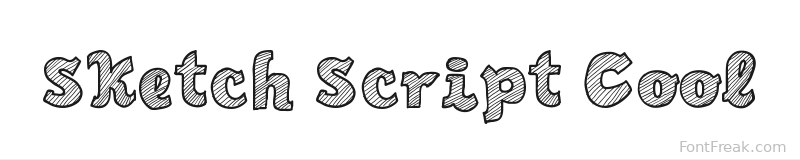
Sketch Script Cool
The Sketch Script Cool font, designed by Galdino Otten Fonts in 2015, is a delightful handwritten typeface that combines a playful aesthetic with a unique sketch-like quality. This font falls under the script category, characterized by its informal and whimsical design. The visual style features a medium stroke weight, which gives it a friendly and inviting appearance, while the subtle contrast adds depth and character. The spacing is well-balanced, allowing for readability, even in longer texts, and decorative elements enhance its overall charm, making it a visually engaging choice for various applications.
Sketch Script Cool is an excellent choice for a variety of creative projects. Its playful nature makes it ideal for wedding invitations, where a personal touch is desired. Additionally, it can be effectively used in designing movie posters that aim for a quirky or artistic flair. Restaurant menus can benefit from its casual yet stylish vibe, enticing customers with a unique presentation. Furthermore, this font can enhance social media graphics, making content pop and capturing the attention of audiences.
Targeting graphic designers, small business owners, and content creators alike, this font appeals to those looking to inject a sense of personality into their work. Whether you are crafting a brand identity or designing promotional materials, Sketch Script Cool offers a fresh approach that resonates with creativity.
What sets the Sketch Script Cool font apart is its ability to blend artistic flair with practicality. Its free availability as a freeware makes it accessible for anyone looking to elevate their designs without compromising on style. For a whimsical yet professional touch, consider the Sketch Script Cool font free download to add a unique dimension to your projects.